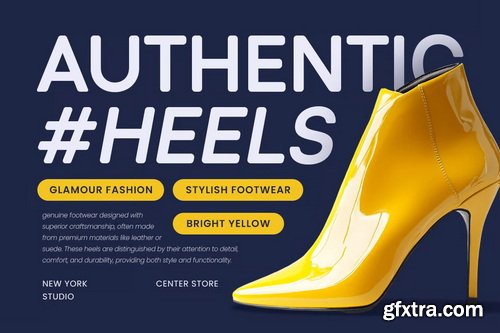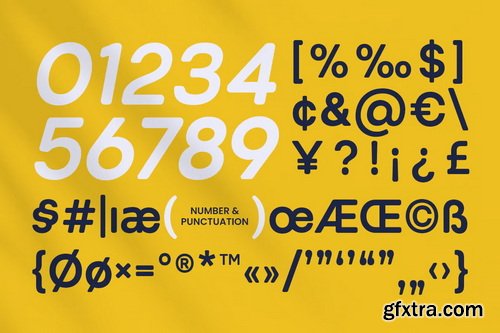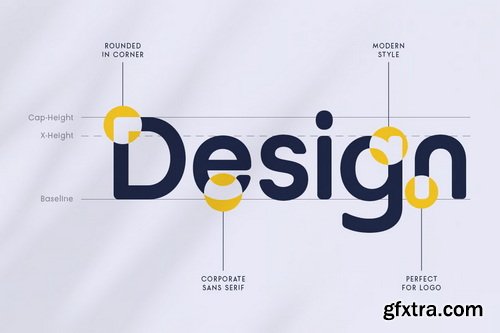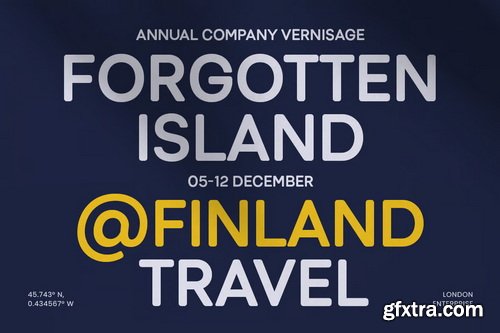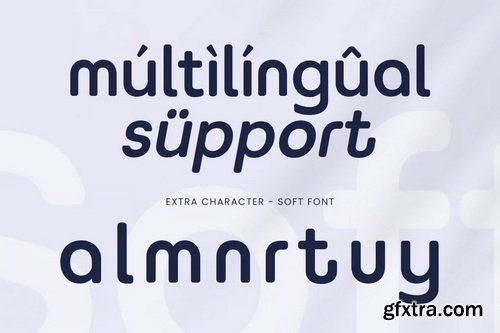
Soft - Modern Rounded Font
Soft is a modern rounded font designed for sleek, friendly, and contemporary designs. With its smooth curves and minimalist aesthetic, this typeface creates a clean and approachable look, perfect for branding, UI/UX interfaces, tech startups, lifestyle products, and creative marketing. The rounded edges and balanced proportions give Soft a welcoming yet professional feel, making it ideal for mobile apps, futuristic logos, product packaging, social media graphics, and children’s designs. Its soft, flowing letterforms enhance readability while maintaining a modern and stylish appearance.